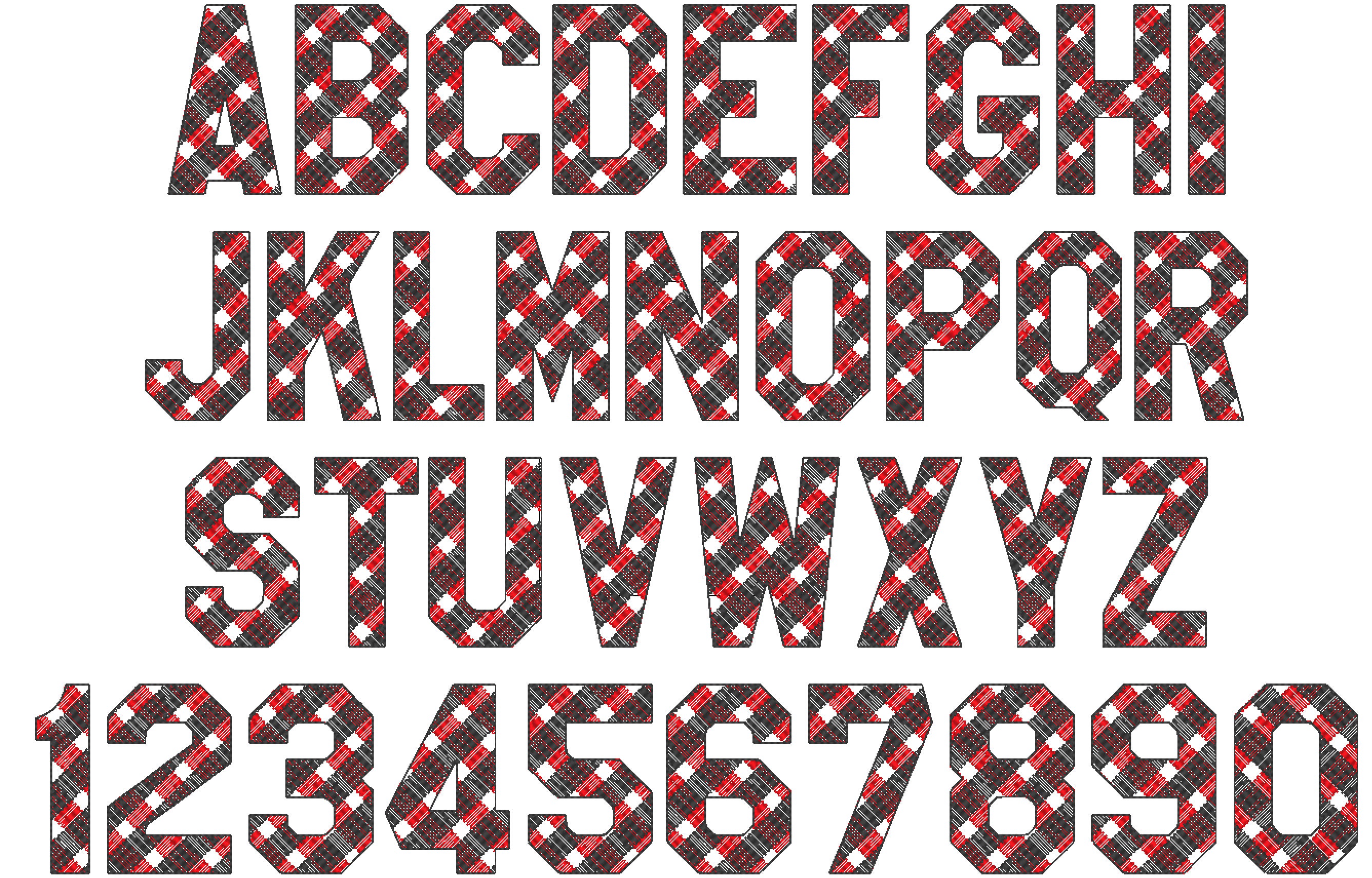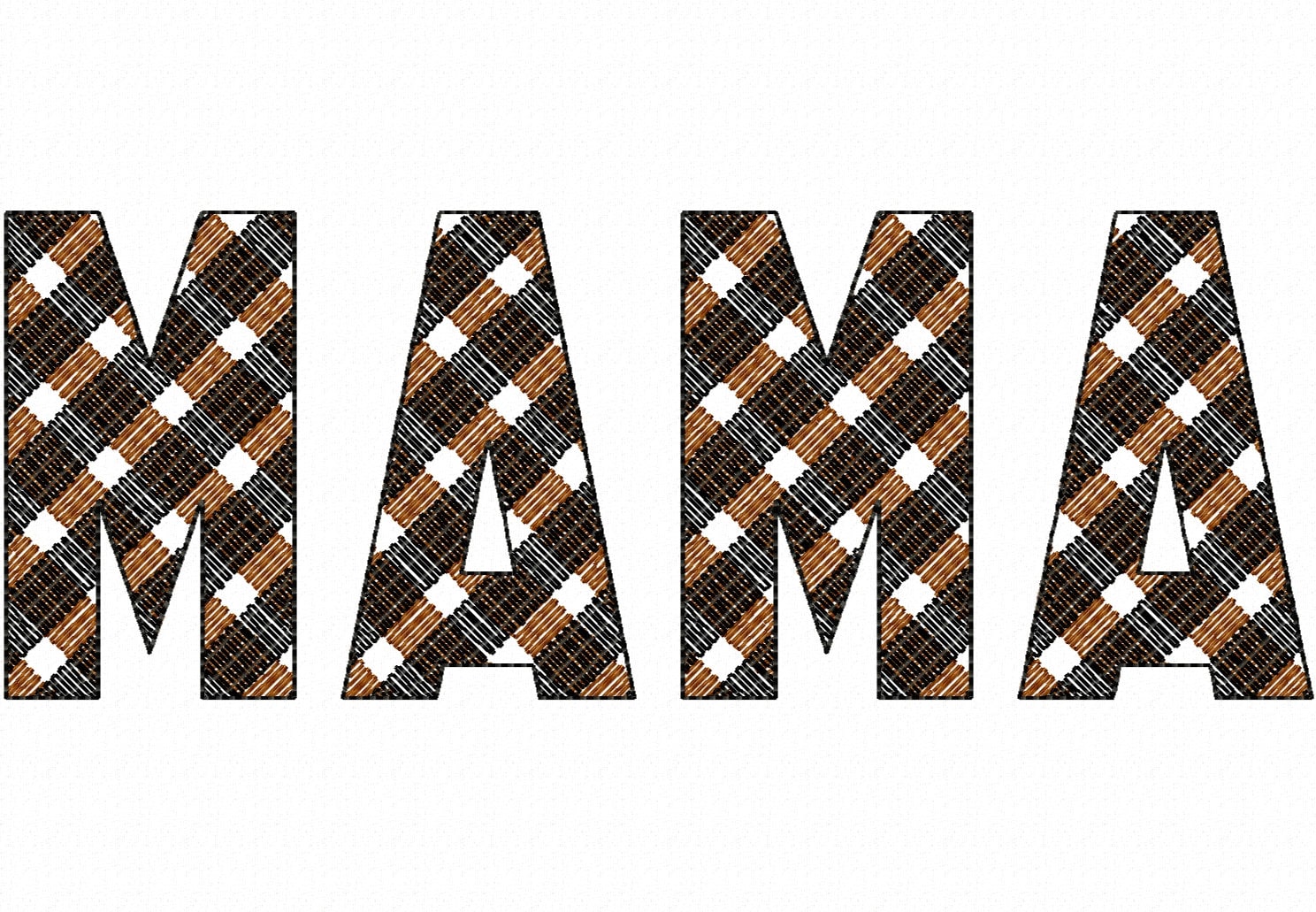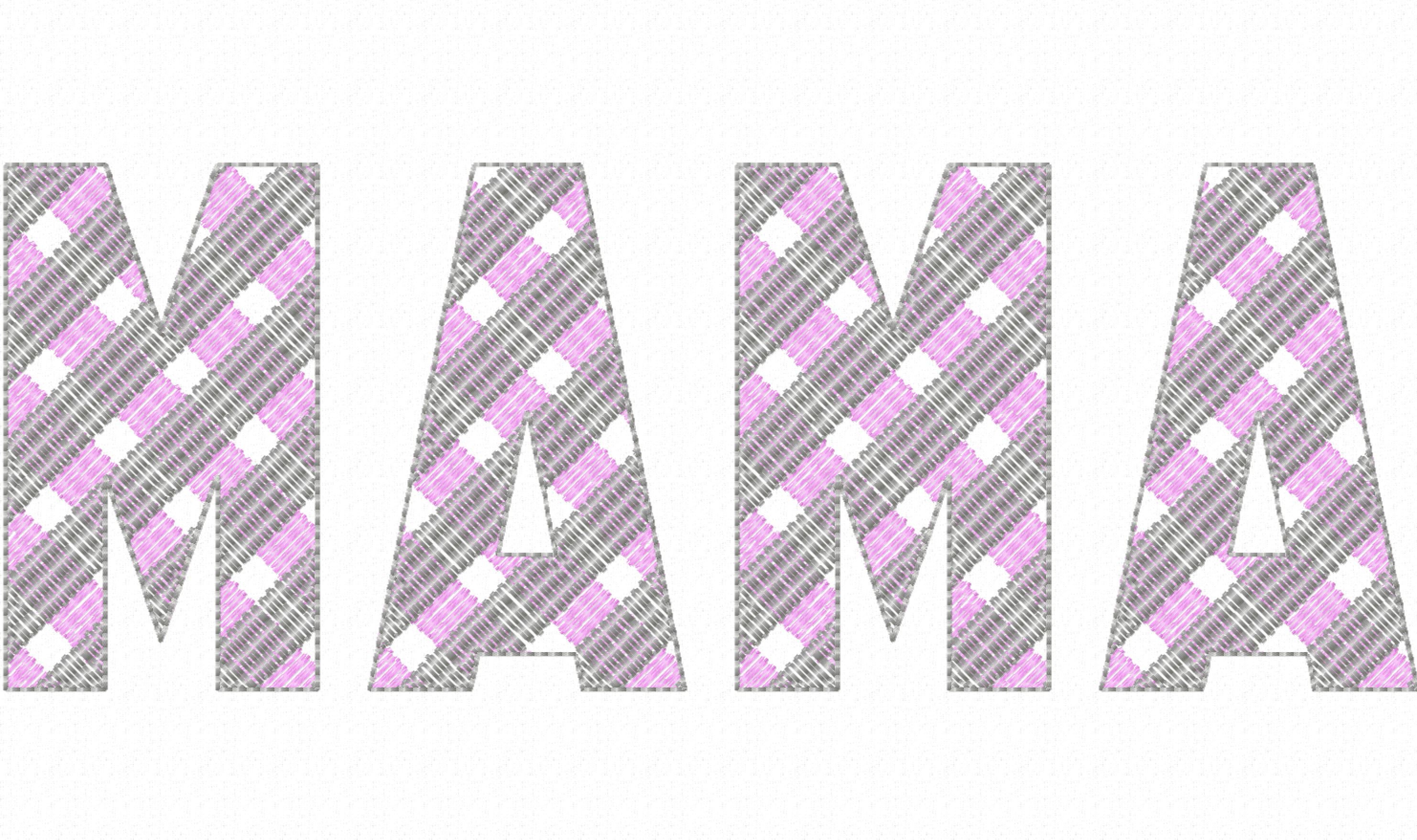
Gingham Block athletic Varsity Font letters numbers machine embroidery designs 2, 3, 4, 5, 6, 7 Buffalo Plaid Tartan checkered
Gingham plaid print is a part of the embroidery.
Whole alphabet A-Z and numbers 0-9, ampersand &